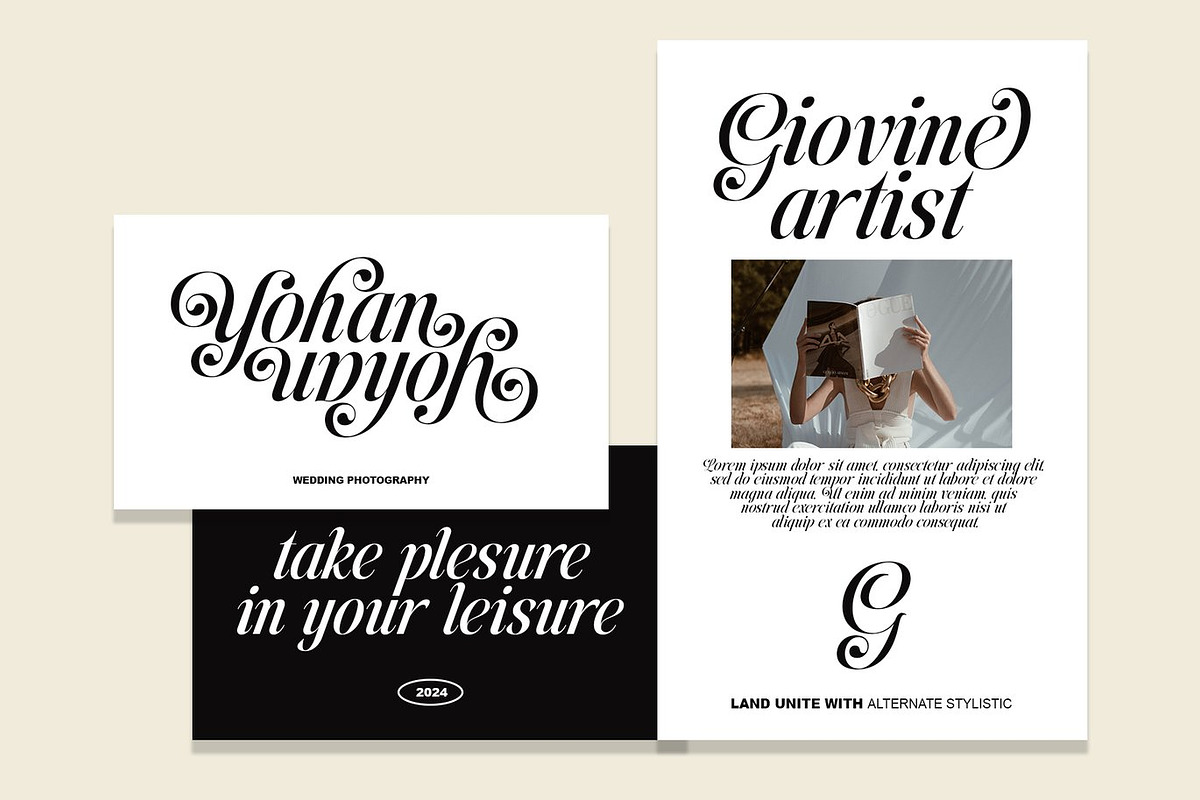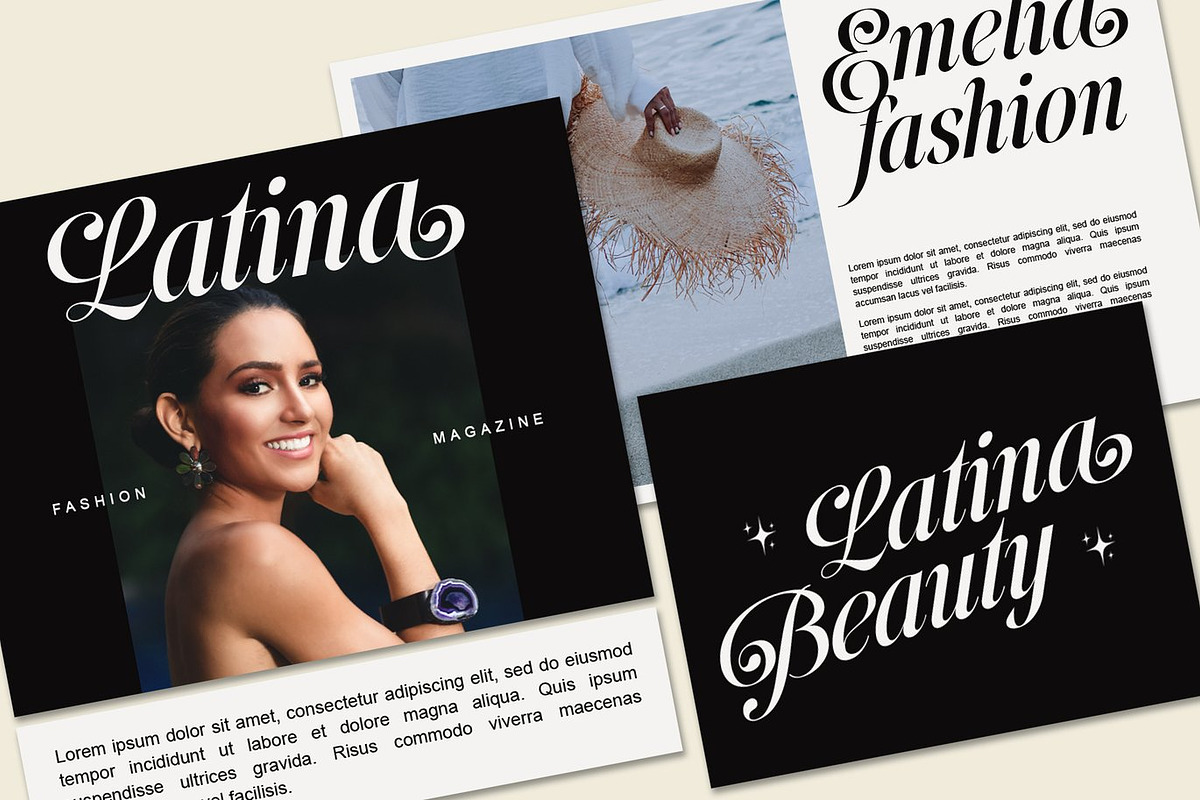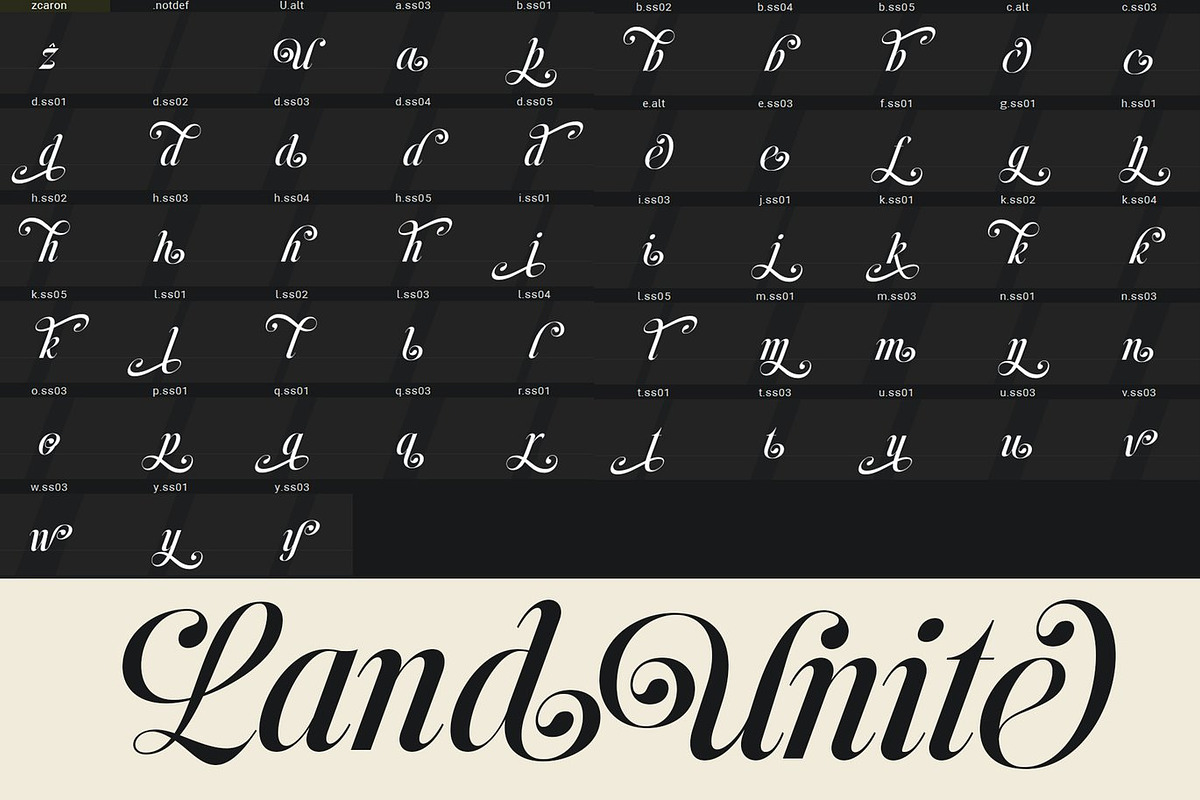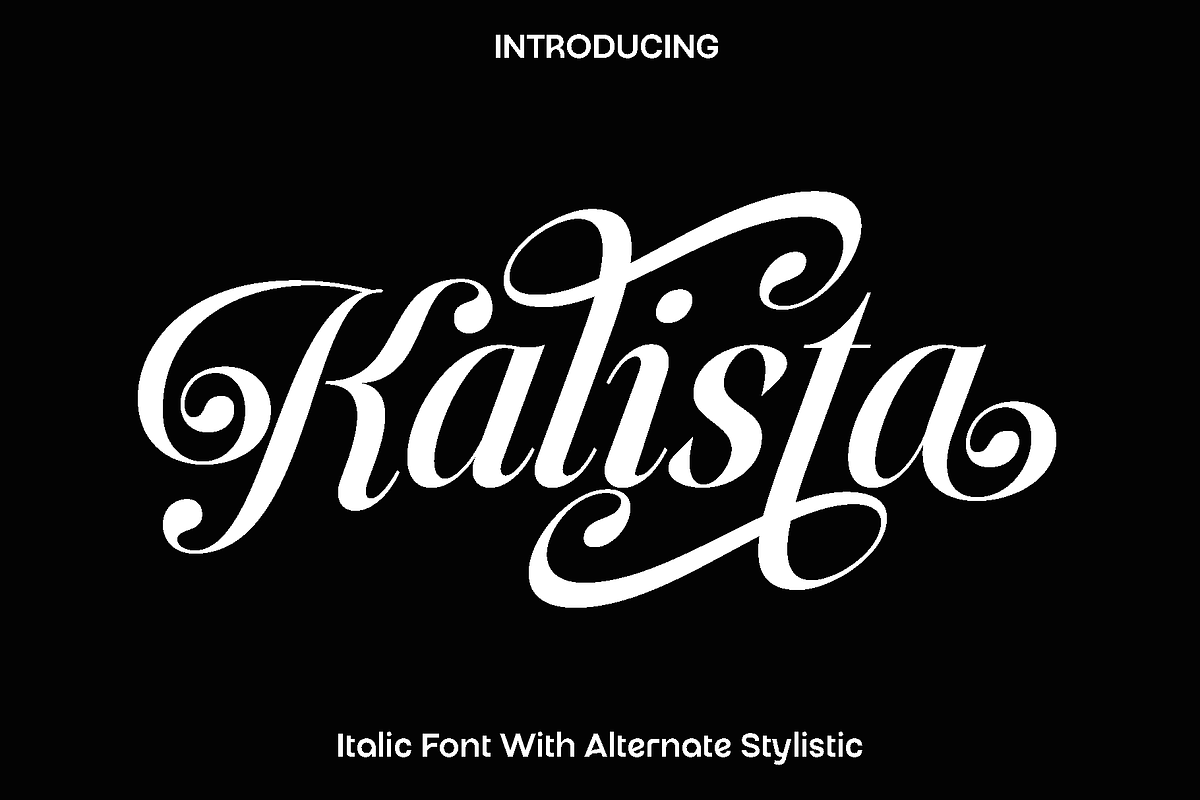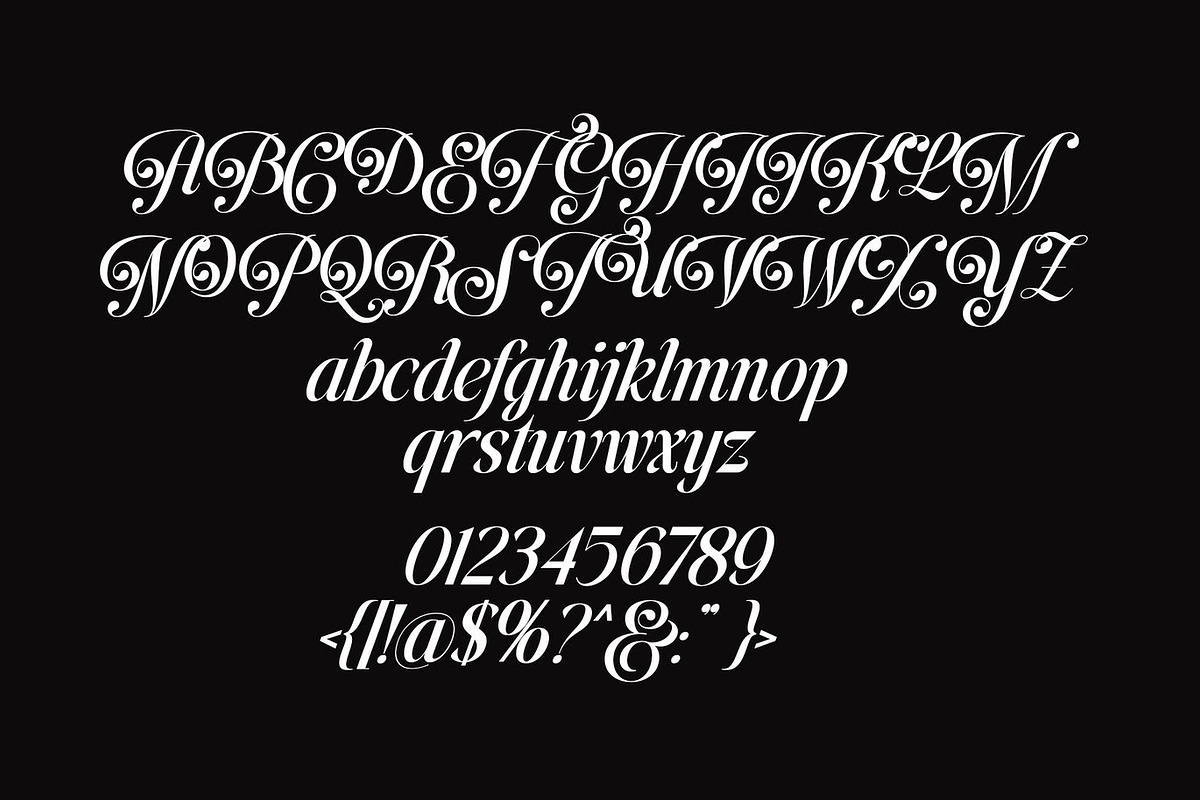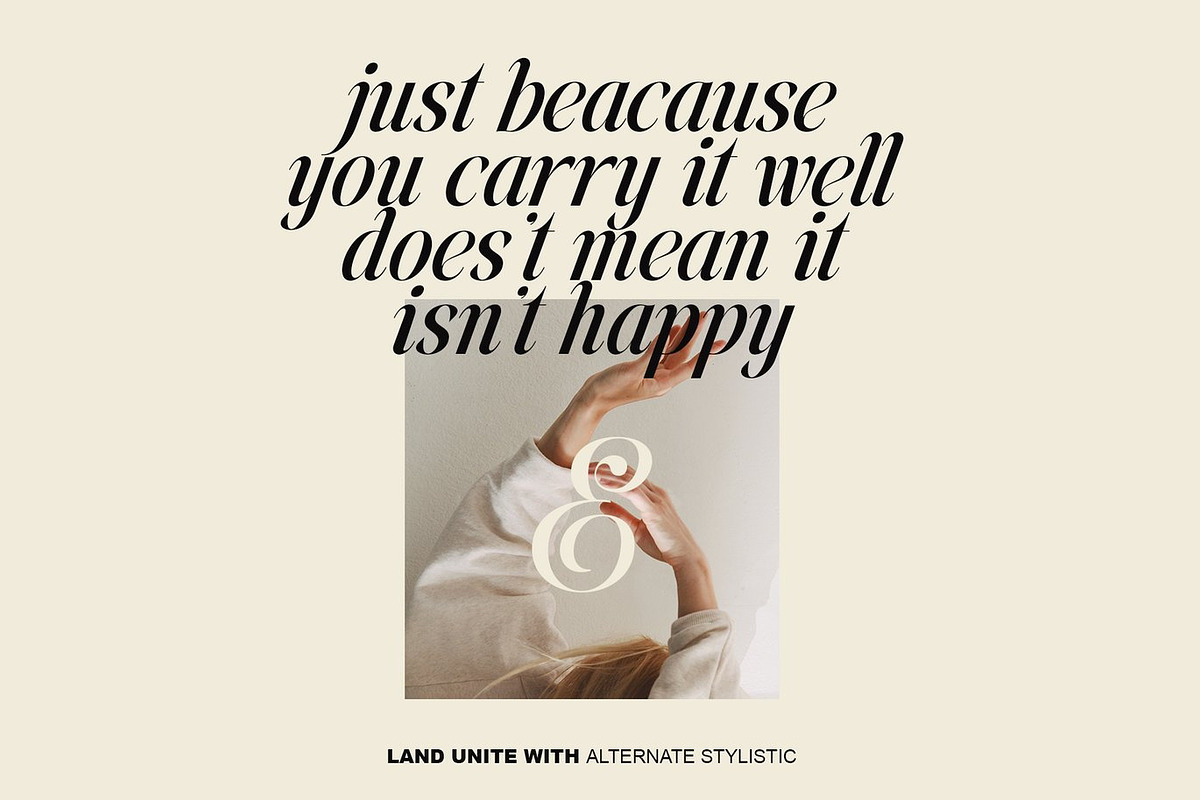
Kalista - Classy Elegant Serif
Kalista is a refined and expressive typeface designed to bring elegance and personality to modern design projects. Inspired by stylish editorial typography and contemporary branding trends, Kalista blends graceful letterforms with a clean and balanced structure. Each character is thoughtfully crafted to create a smooth visual rhythm, allowing your text to feel sophisticated, readable, and visually engaging.
The beauty of Kalista lies in its versatility. It works beautifully across a wide range of creative applications, making it an excellent choice for book covers, magazines, logo design, branding projects, photography overlays, quotes, blog headers, posters, and advertising materials. Whether used for striking headlines or elegant body text, Kalista adds a distinctive and polished look that elevates the overall design.
Kalista carries a modern yet timeless feeling that helps designers communicate style and confidence. Its carefully designed letterforms, combined with stylistic alternates and ligatures, allow you to create unique typographic compositions with ease. This makes Kalista perfect for designers, brands, and creatives who want to add a sophisticated touch to their work.
With strong readability and elegant details, Kalista adapts seamlessly to both print and digital environments. From editorial layouts to personal branding projects, this typeface helps bring ideas to life with clarity and style.
Kalista Font Features:
• Uppercase and lowercase characters
• Numerals and functional punctuation
• Stylistic alternates
• Ligature characters
• Multilingual support
• OpenType features